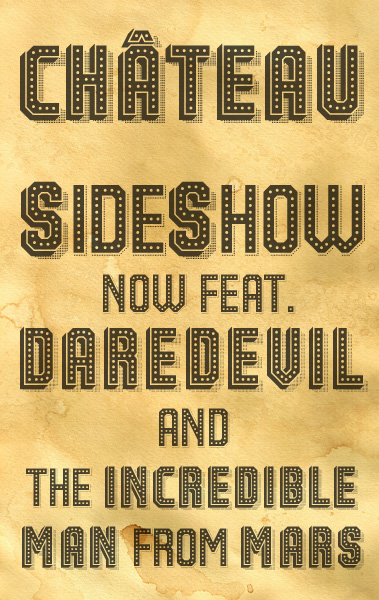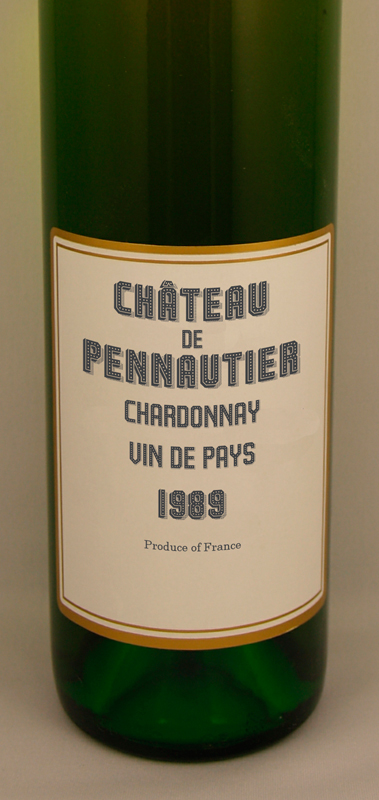
Magnificent 3D and shadow effect - really well executed. 10/10
this is lovely. looks very professional!
Wow! Samples are great!
It's is if no software was used :)
10/10!
sehr geil! aber die Flasche ist ja schon leer ! )
Very good shadowed 3d version and great samples!
Such beautiful, detailed craftmanship. Excellent. Looking at the glyphs, it is clear you knew exactly where to remove the highlights from which gives the whole thing an extra added dimension. 3D.
Fabulous!!!
love it great work
Great work. Complete the special characters. 10/10
cOOL!